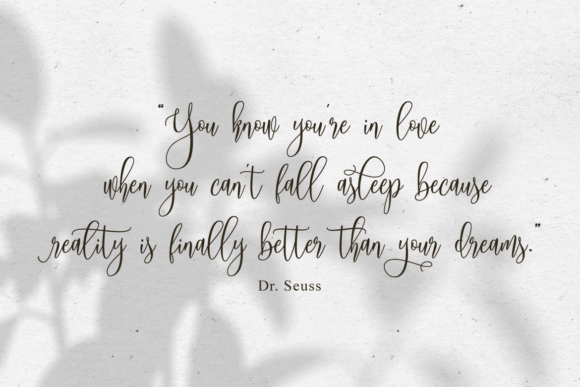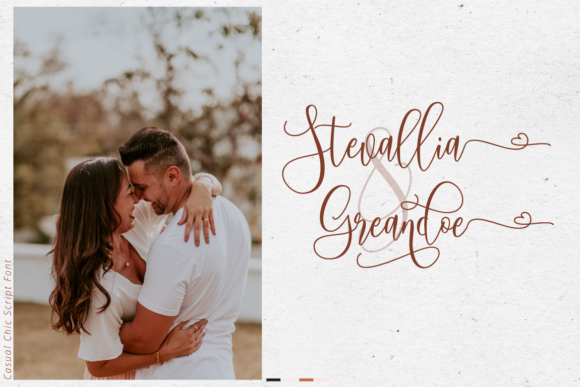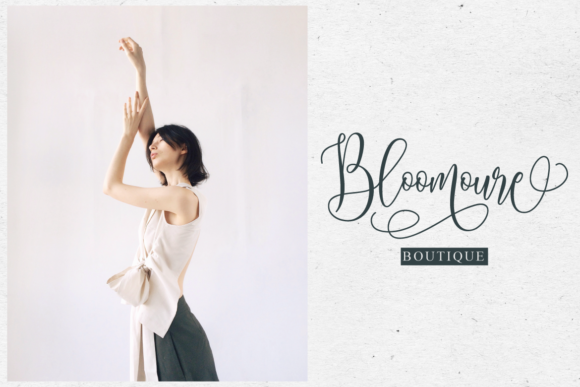
Introduction to Mollinda Font
There’s something magical about the first brush stroke on a new project. The blank canvas, the blank page, the endless possibilities – it’s a moment of pure creative freedom. For designers, this moment is a thrill unlike any other. And, with the right tools, it can be a breeze. One such tool is the stunning Mollinda Font, a script font that exudes elegance and charm.
Imagine having the perfect font to match your design vision, every time. With Mollinda Font, that vision becomes a reality. This free download offers a high-quality, transparent background that’s perfect for any creative project. Whether you’re working on a logo, a poster, or a website, this font is sure to elevate your design.
What sets Mollinda Font apart is its versatility. With a varying baseline, smooth lines, gorgeous glyphs, and stunning alternates, this font is a true design resource. And, with PUA encoding, accessing all the great glyphs and swashes is a cinch.
Key Features of Mollinda Font
- High-quality font suitable for creative projects, including graphics, logos, and typography
- Transparent background, allowing for seamless integration with various backgrounds and designs
- Includes a range of weights and styles, from light to bold, to cater to various design needs
- Designed with high-resolution graphics in mind, with a resolution of 300 DPI for crisp and clear display
- Perfect for use in digital and print-based design projects, including business cards, brochures, and websites
Honest Review: Mollinda Font
I recently had the chance to work with the Mollinda Font, and I must say, it’s a fantastic addition to any designer’s toolkit. This free download is a game-changer for any creative project that requires a unique and elegant touch. The Mollinda Font is designed with a transparent background, making it perfect for overlaying on images or using as a standalone element.
- ✨ High-quality design: The Mollinda Font is crisp, clear, and beautifully crafted.
- ✨ Versatile: This font is perfect for a wide range of creative projects, from logos to web design.
- ⚠️ Limited character set: While the Mollinda Font is available in a range of languages, it’s not a full Unicode font, which may limit its use in certain projects.
- ⚠️ No bold or italic styles: While the font is beautifully designed, it’s only available in regular style, which may not be suitable for all design needs.
Overall, I’m thoroughly impressed with the Mollinda Font. It’s a high-quality design resource that’s perfect for any creative project. While it may have some limitations, it’s a great addition to any designer’s toolkit and is definitely worth checking out.
The Mollinda Font is ideal for use in branding, marketing materials, and creative projects that require a high-quality, elegant font. Its transparent background makes it easy to use on various design backgrounds, making it a versatile design resource.